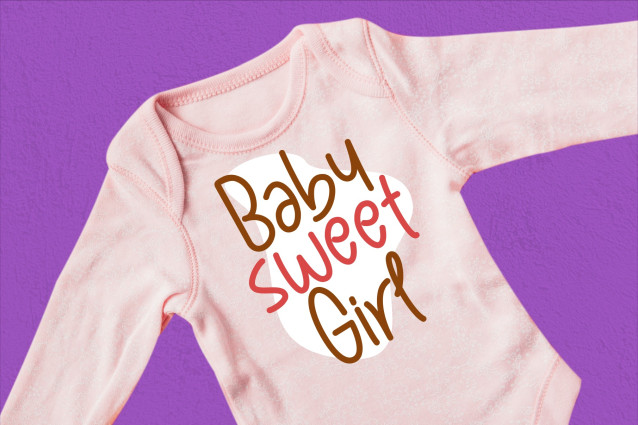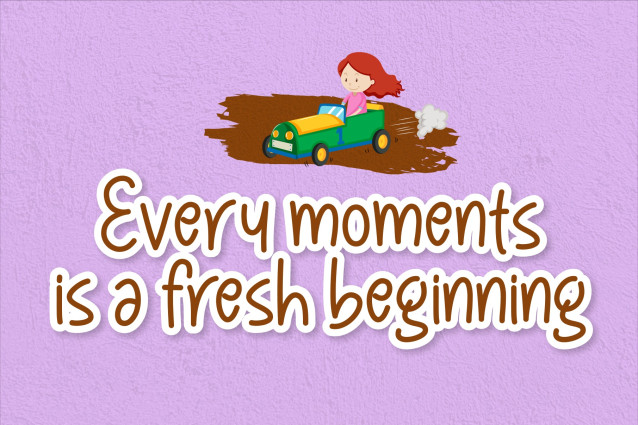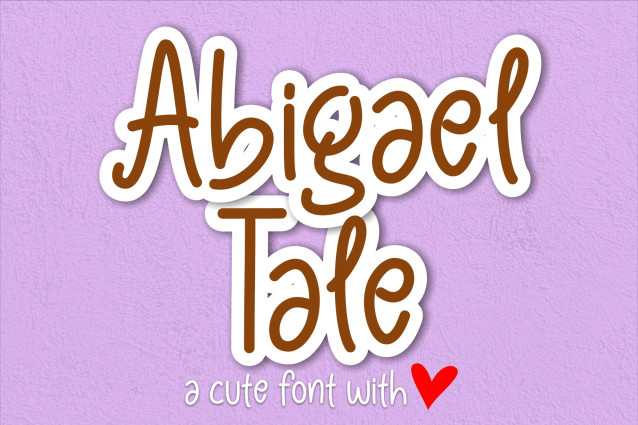
Abigael Tale Handwritten Font
Abigael Tale Handwritten Font is a delightful monoline font that exudes playfulness and charm. With its smooth, single-line strokes and whimsical curves, this typeface brings a sense of joy and lightheartedness to any project. Each character is thoughtfully designed to maintain a consistent weight, giving it a clean and modern look while retaining a playful vibe.
Perfect for children’s books, greeting cards, and playful branding, Abigael Tale Font’s rounded edges and bubbly letterforms create an inviting and friendly appearance. Its versatile style ensures it stands out in both large and small text, making it a great choice for headlines, logos, and creative designs.Embrace the fun and cheerful personality of Abigael Tale Font to add a touch of magic and joy to your next design project!